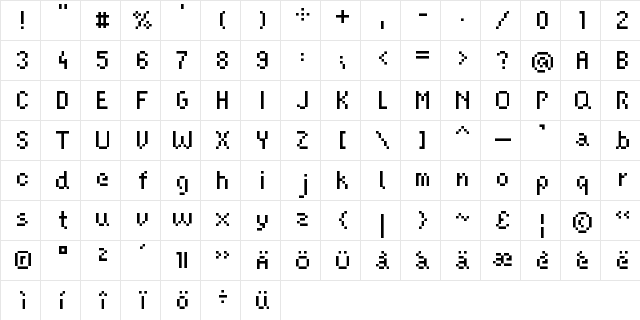
screenfox9 Regular
| Designer | spacefox |
Design Context for screenfox9 Typeface
screenfox9 is a composed and adaptable typeface that performs quietly and consistently across a wide range of design contexts.